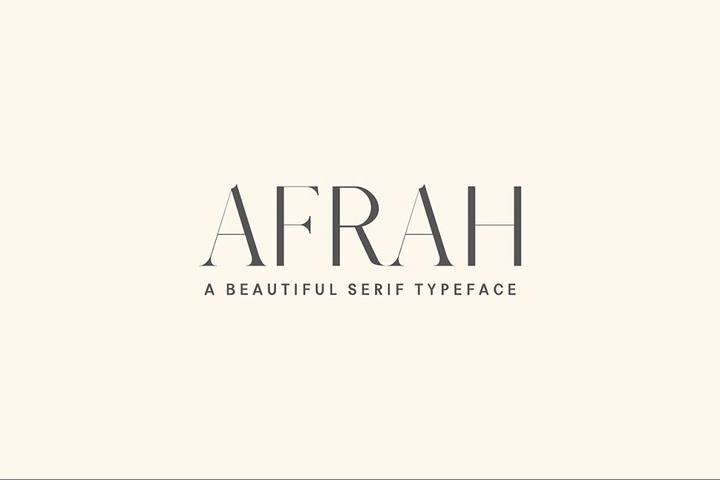
Afrah Serif Font Family Pack
Afrah Serif Font Family Pack is perfect for elegant book publishing, sophisticated magazine layouts, upscale wedding stationery, premium brand communications, cultural publications, art gallery catalogs, fine dining menus, and distinguished editorial content.
Afrah Serif Font Family Pack is exciting because it embodies graceful sophistication with meticulously crafted serif details that convey timeless elegance and cultural refinement. Its harmonious letterforms and classical proportions create an atmosphere of dignity and intellectual distinction that elevates any design application.
Afrah Serif Font Family Pack family includes light, regular, medium, and bold weights with matching italic variations, offering designers eight beautifully balanced font styles for creating refined and authoritative typographic hierarchies.
Editorial professionals consistently select Afrah Serif Font Family Pack for its ability to convey expertise and cultural depth across diverse applications. Its classical foundation provides familiar reading comfort while sophisticated details ensure contemporary relevance in both digital and print media. The font's dignified presence works magnificently in academic publications, cultural programming, and institutional branding where tradition and credibility are paramount to audience engagement.
The Afrah Serif Font Family Pack download includes comprehensive character sets with cultural symbols, extensive punctuation marks, and international language support for global publishing compatibility. This thorough coverage ensures professional results in complex multilingual documents, academic papers, and cultural publications. The font's consistent spacing and careful kerning optimization create polished layouts that enhance reader comprehension and cultural presentation.
Design teams appreciate Afrah Serif Font Family Pack's versatility in creating respected institutional materials that command attention and cultural respect. Its timeless appeal transcends design trends while maintaining the gravitas required for serious cultural discourse, making it an invaluable asset for organizations seeking to establish lasting authority through superior typographic communication and cultural sophistication.